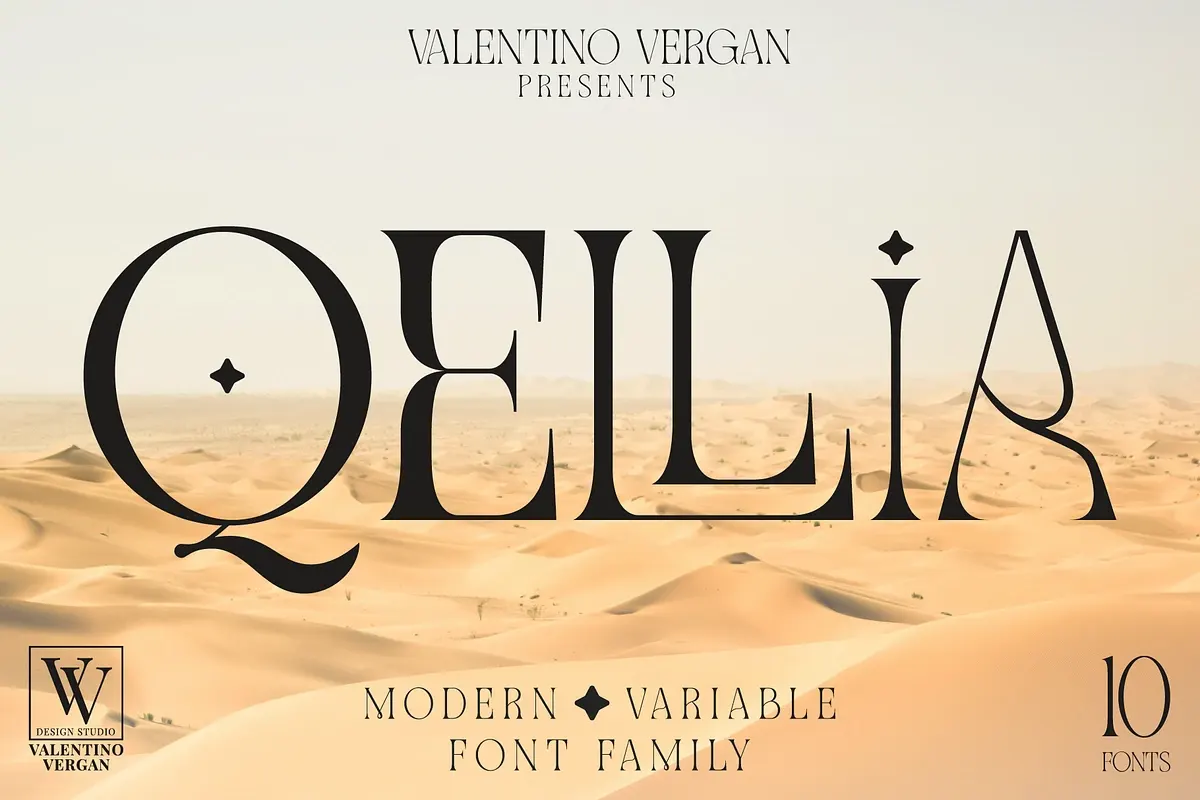
Qellia - Variable Font Family Free Download is a versatile and modern font family designed to provide maximum flexibility for all your design needs. With its variable style, you can easily adjust the weight, width, and slant to suit your project’s specific requirements. Perfect for logos, branding, websites, and editorial designs, this font family offers smooth transitions between different styles, allowing you to create dynamic and cohesive designs. Whether you’re designing a professional brand identity, a stylish website, or a creative marketing campaign, Qellia - Variable Font Family Free Download lets you experiment with its adaptable design in personal projects before purchasing a commercial license. Add a modern and flexible touch to your designs with this beautifully crafted variable font family.